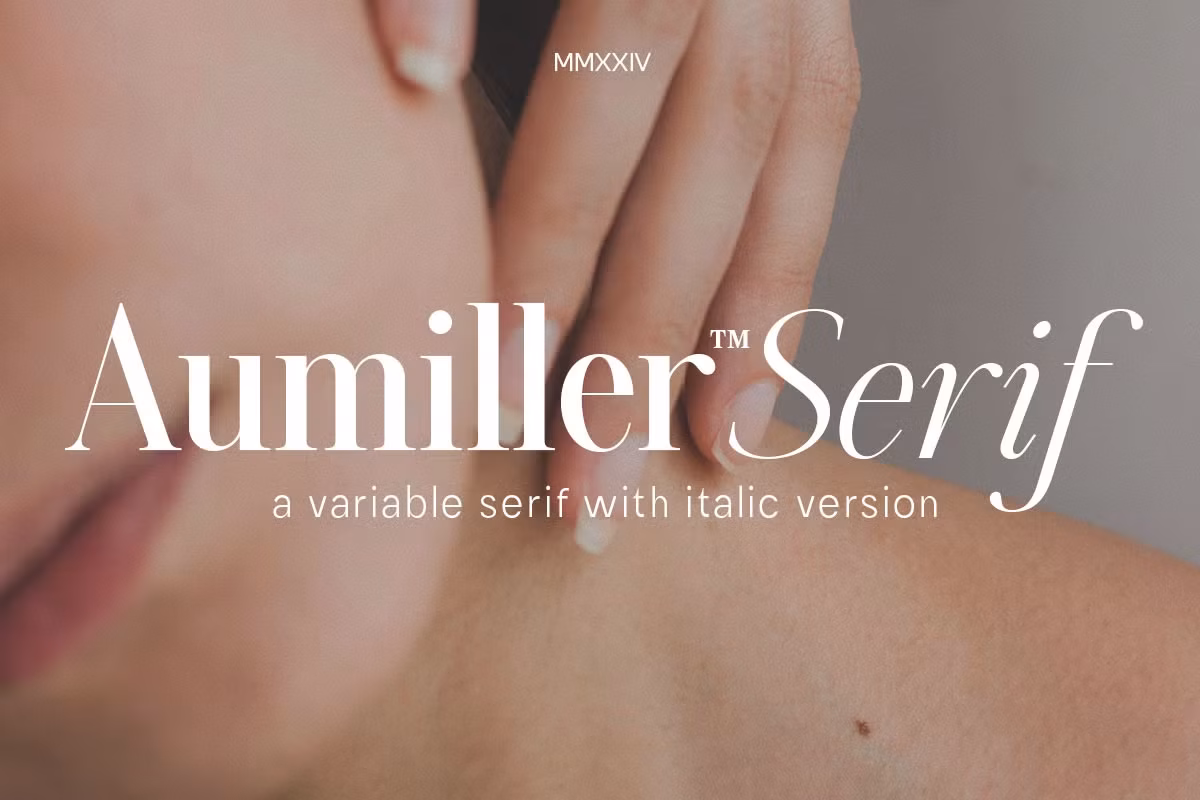
You must purchase this font for commercial use. However, you can download Aumiller Serif Family (18 Fonts) Free Download for testing purposes. Aumiller is a versatile and elegant serif font family featuring 18 distinct fonts, offering a wide range of weights and styles. Perfect for editorial design, branding, advertising, and any project requiring both sophistication and readability, this font family ensures your typography stands out with refinement.
With its classic serifs, clean lines, and varied weights, Aumiller provides designers with the flexibility to create everything from bold headlines to subtle body text. Its comprehensive family structure allows you to maintain consistency across multiple design elements while offering endless creative possibilities.